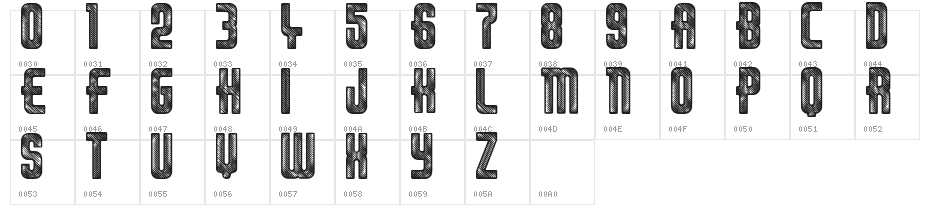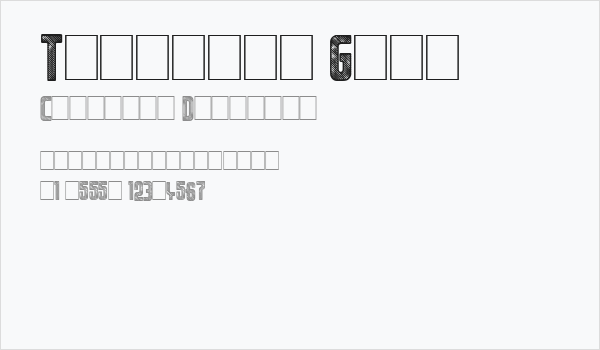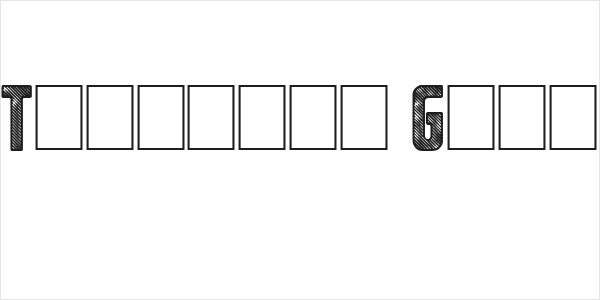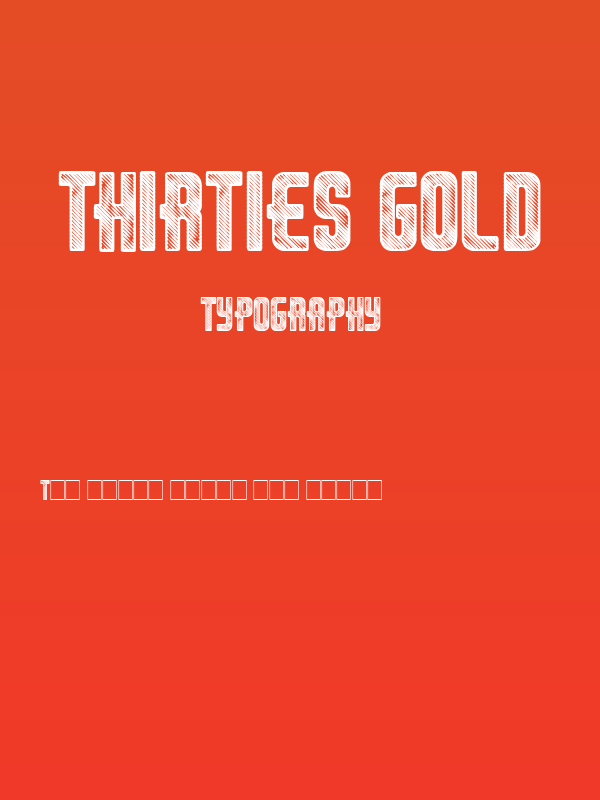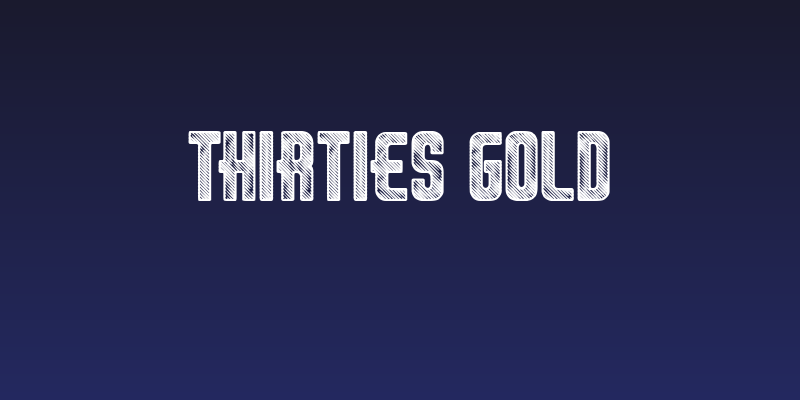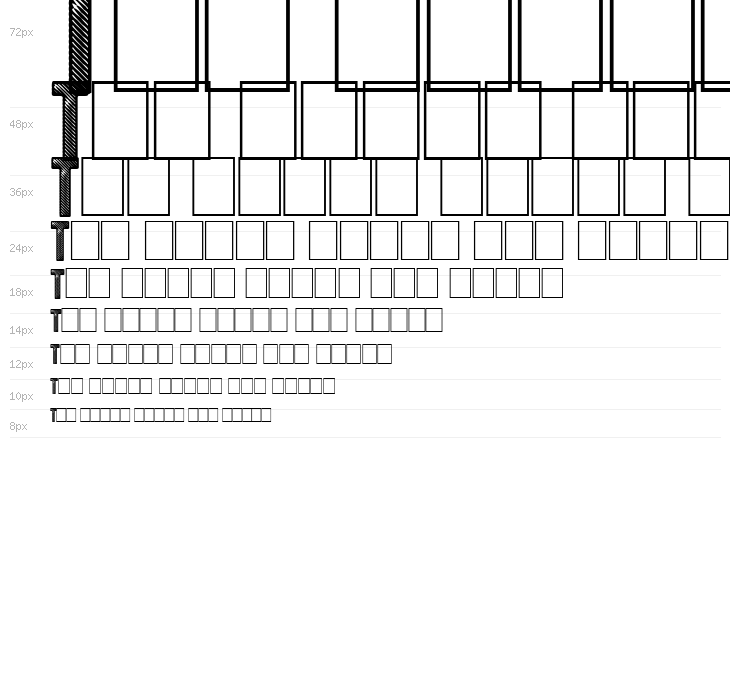
Thirties Gold Font
Thirties Gold Description
This font features a bold, decorative style with a distinct vintage flair reminiscent of the 1930s. The characters are designed with a strong, geometric structure, incorporating diagonal lines that create a textured, striped effect within each letter. This adds a layer of depth and visual interest, making it stand out in any design. The uppercase letters are uniform in height, while the numbers and special characters maintain the same bold and textured appearance. The overall look is both striking and nostalgic, perfect for capturing attention and evoking a sense of retro elegance.
Overall StyleVintage
Proposed ProjectsIdeal for retro-themed posters, vintage branding, event invitations, and decorative signage.